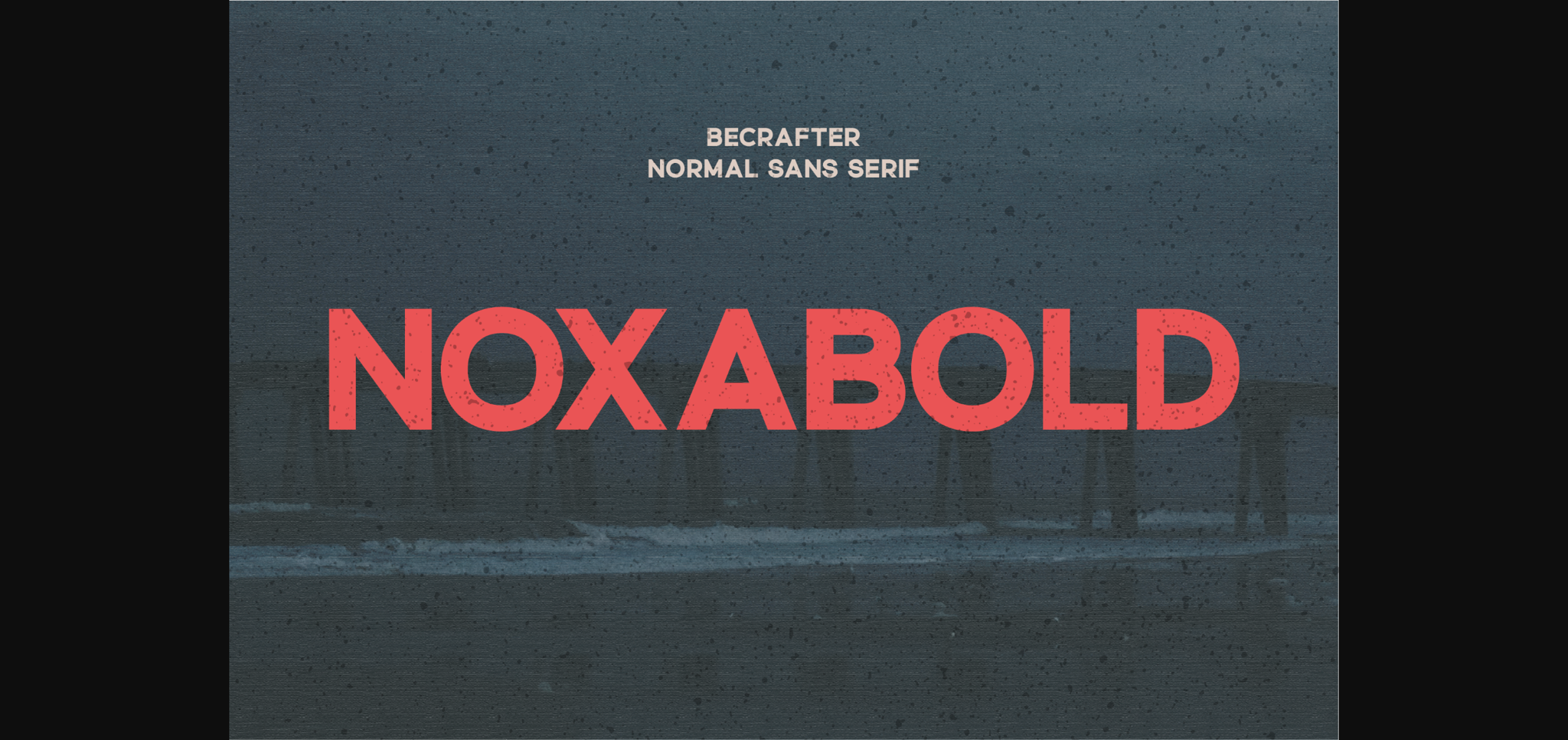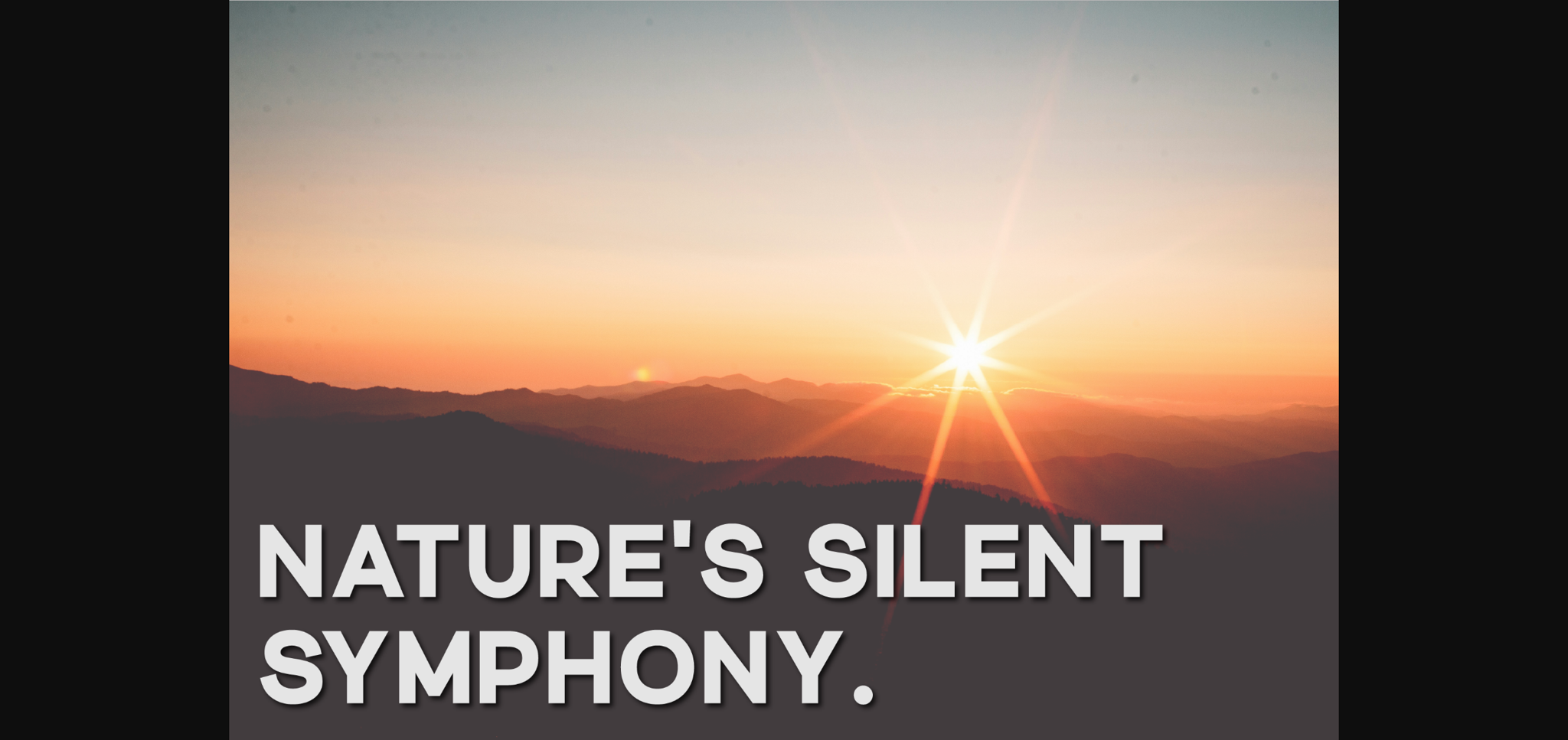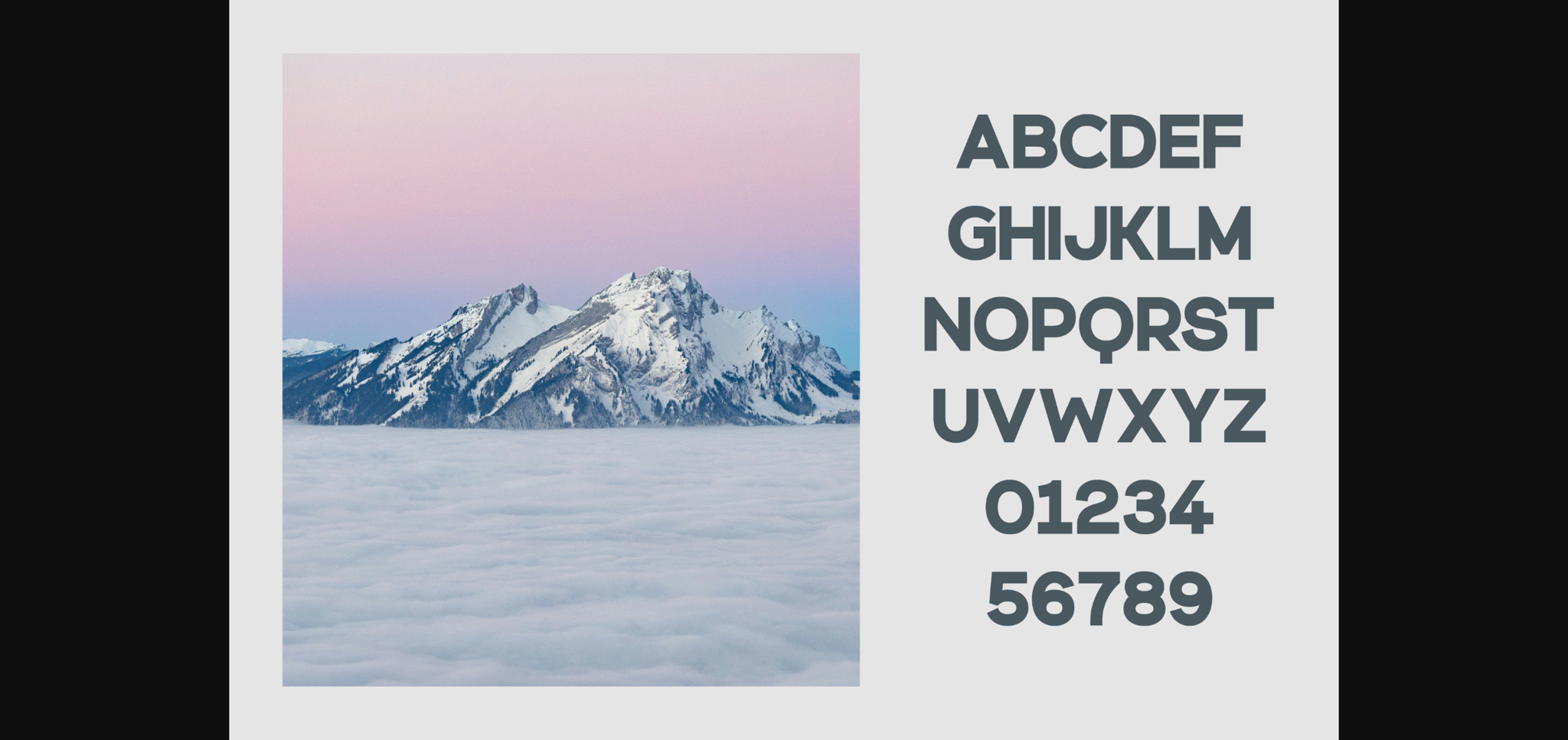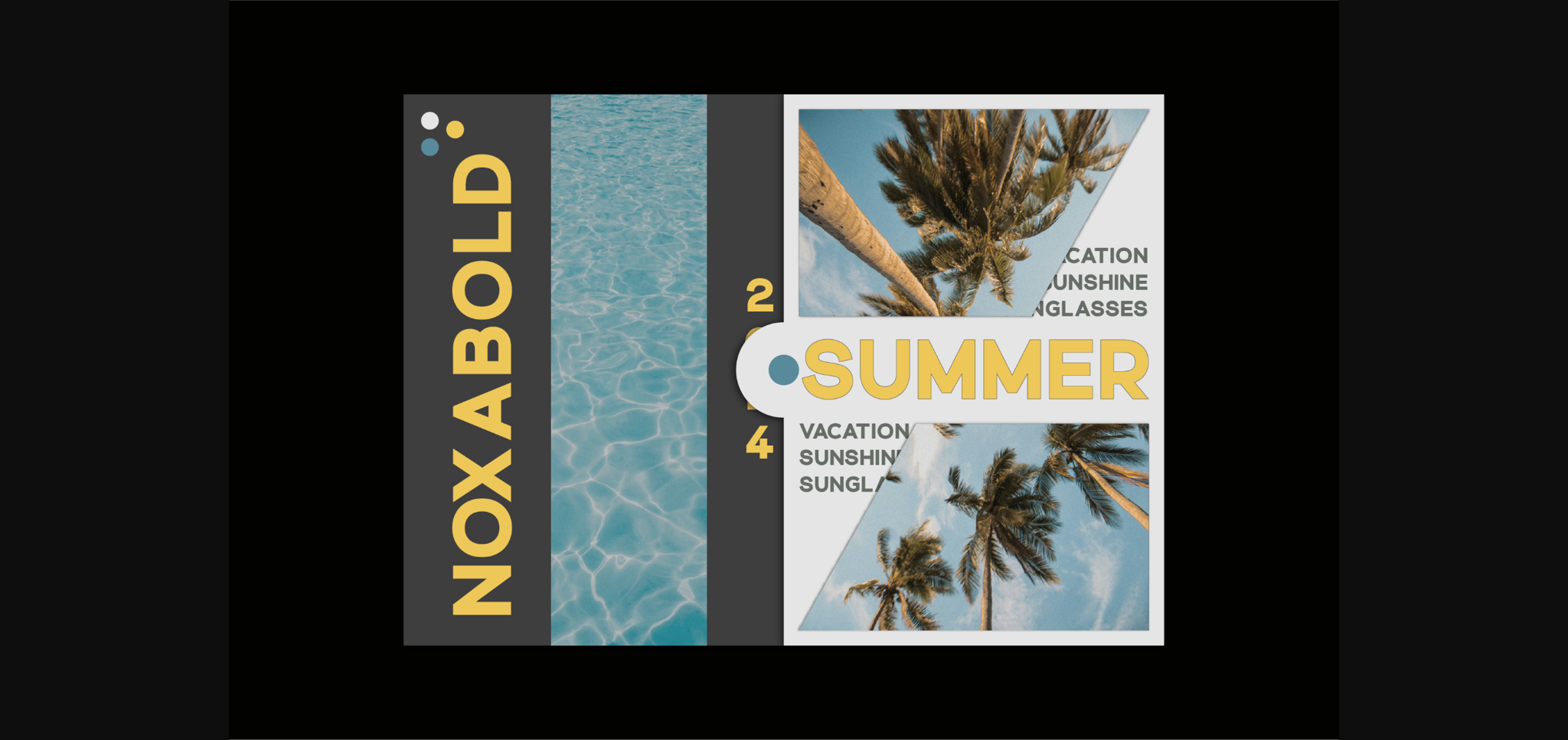
Noxabold Font
About Noxabold Font
Step into the realm of vintage aesthetics with Noxabold, a robust and bold type font that’s oozing with versatility. This strikingly beautiful uppercase sans-serif font breathes a fine mix of old-school appeal and contemporary finesse to your creations. With its compelling aesthetics, Noxabold will take your logos and printed materials to an entirely new level of sophistication. Pre-embedded with uppercase letters, numbers, and punctuations, Noxabold is all about giving your creativity the edge it deserves to stand out in a crowd. Adaptable and stylish, Noxabold is your go-to font for anything that warrants a touch of classic elegance.